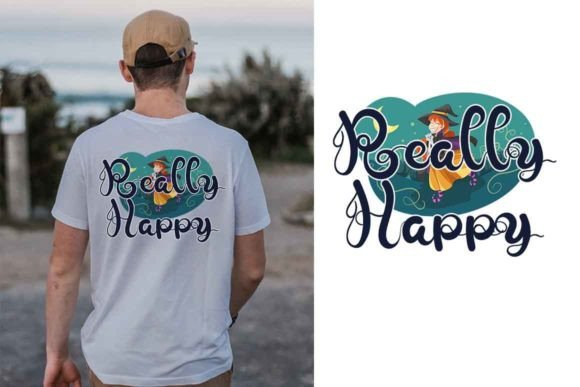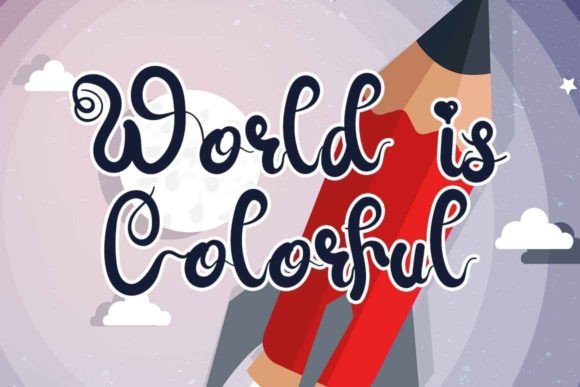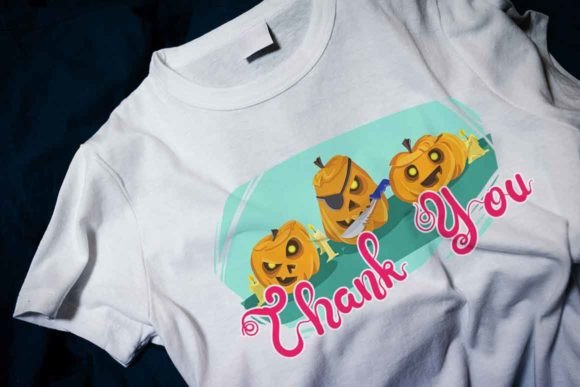
About Making Halloween Font
“Making Halloween” is a font that embodies a beautiful and sweet style, characterized by freshness, cleanliness, and elegance. This font has the versatility to enhance a wide range of projects, whether they are formal or informal, and it adds a joyful touch to your designs.
The charm of “Making Halloween” lies in its fresh and elegant script. Its clean and well-designed letterforms create a visually captivating and refined experience, making it an ideal choice for projects that aim to convey a sense of beauty and sophistication.
One of the standout qualities of “Making Halloween” is its versatility. Whether you’re using it for formal business documents, crafting informal Halloween-themed designs, designing elegant posters, enhancing web graphics, or working on various other creative projects, “Making Halloween” integrates seamlessly into your creative vision.
This font’s dedication to adding beauty and joy to your designs sets it apart. Whether you’re working on personal or professional endeavors, “Making Halloween” brings a sense of freshness and elegance to your work that resonates with a diverse audience.
In summary, “Making Halloween” is more than just a font; it’s a versatile and beautiful creative tool that can elevate your projects. Whether you’re a professional seeking an elegant and joyful font for your business or an enthusiast passionate about design, “Making Halloween” is here to make your designs shine with its fresh and sweet script. Embrace the beauty and joy of “Making Halloween,” and watch your creativity flourish with a touch of elegance and happiness, especially for Halloween-themed projects.